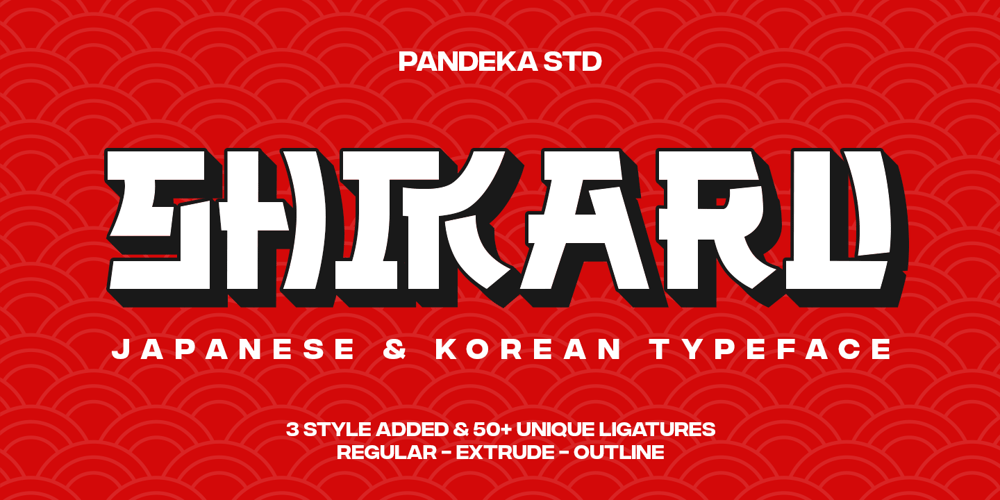
Shikaru
Shikaru font
Shikaru Font Family was designed by Sagara Nararya and published by Pandeka Studio. Shikaru contains 3 styles and family package options. Konnichiwa and Annyeonghaseyo! 🌸✨Bring your designs to life with Shikaru, a display font inspired by modern Japanese and Korean lettering. Featuring 3 styles – Regular, Extrude, and Outline, along with 50+ unique ligatures and alternates, Shikaru allows endless creativity to make your designs stand out. Its bold yet elegant design blends tradition with a contemporary touch, making it perfect for logotypes, posters, branding, banners, and more.What’s Included: Main Files formats 3 Styles: Regular, Extrude, and Outline 50+ unique Ligatures and Alternates Full Character Set: Uppercase, lowercase, numbers, symbols, and punctuation Easy to Use: Works on both PC & Mac Compatible with Adobe Illustrator, Photoshop, Microsoft Word, Canva, and more PUA Encoded: Fully accessible without additional software Language Support: Danish, English, Estonian, Filipino, Finnish, French, Friulian, Galician, German, Gusii, Indonesian, Irish, Italian, Luxembourgish, Norwegian Bokmål, Norwegian Nynorsk, Nyankole, Oromo, Portuguese, Romansh, Rombo, Spanish, Swedish, Swiss-German, Uzbek (Latin)Thank you and happy designing!Pandeka Studio